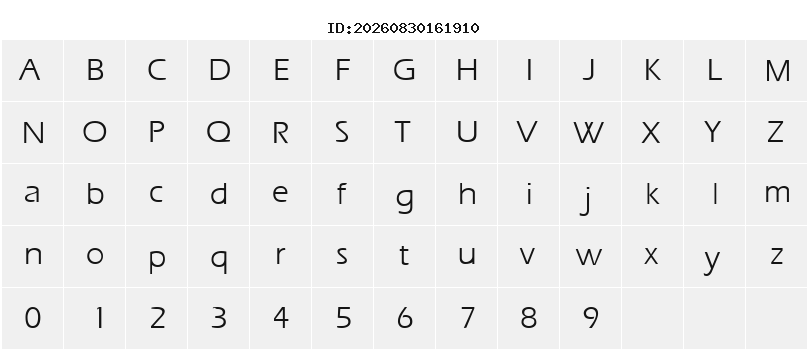
Thanks Preview
• Font Name: Thanks
• Full Font Name: Thanks Regular
About Thanks.ttf
Thanks.ttf is a modern, elegant sans-serif font designed for ultimate readability and visual harmony. Perfect for branding, headlines, web design, and print materials.